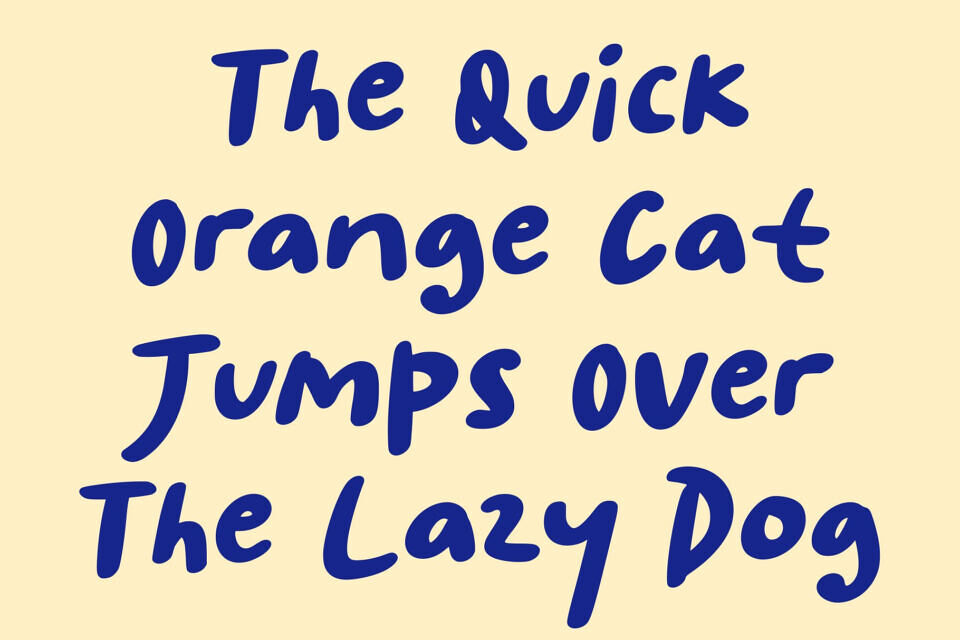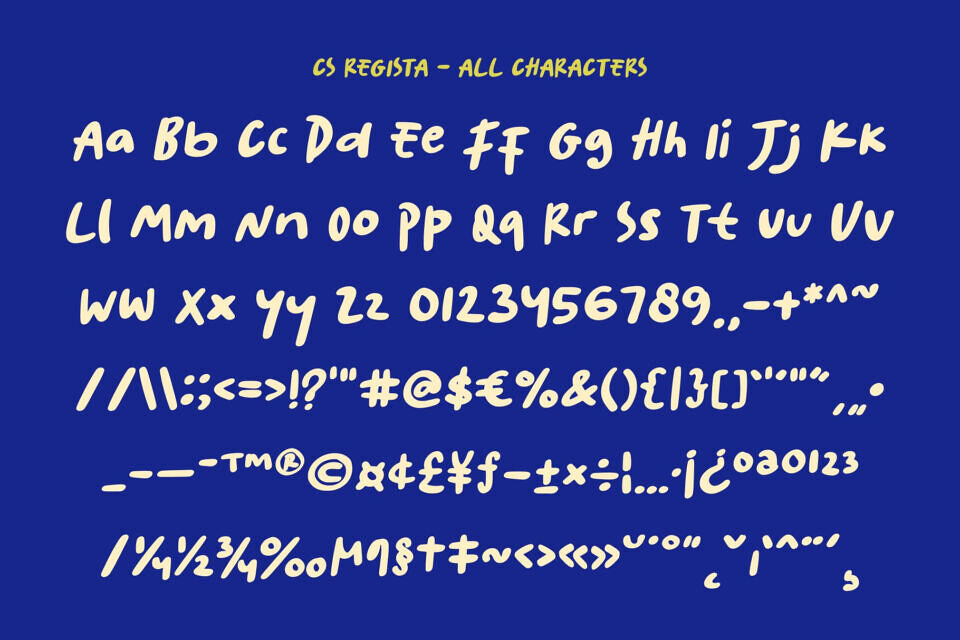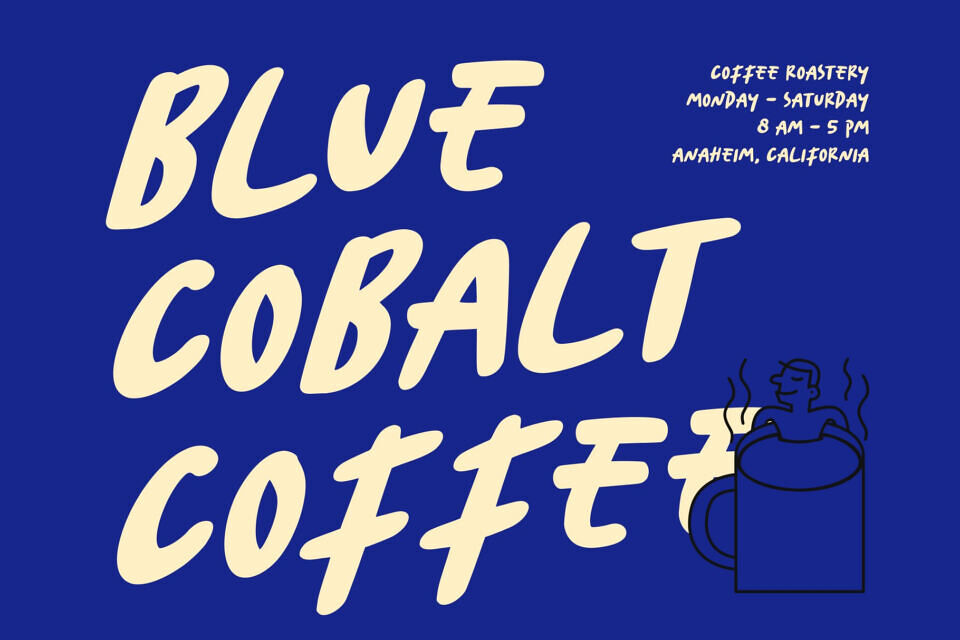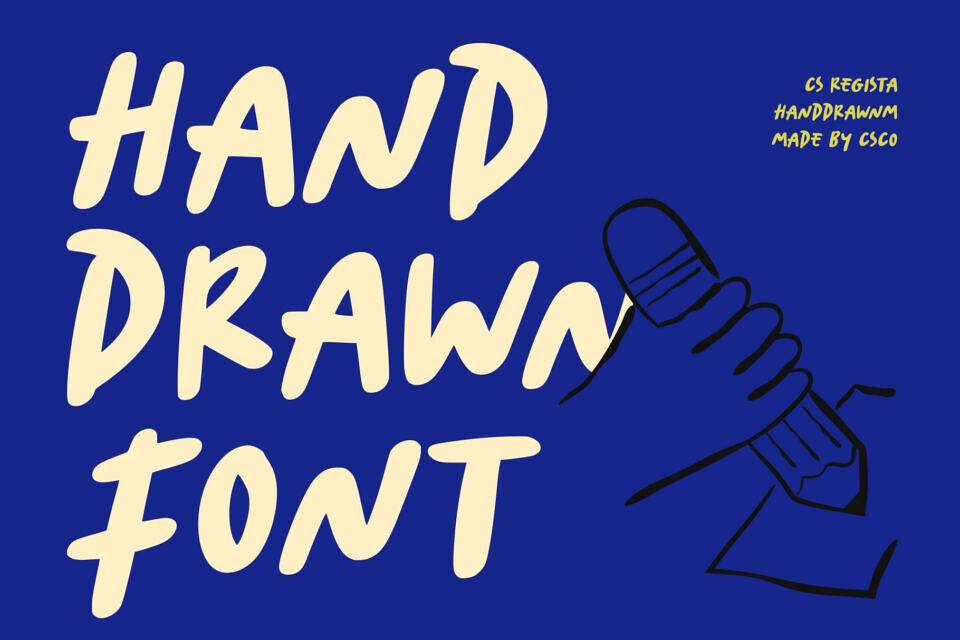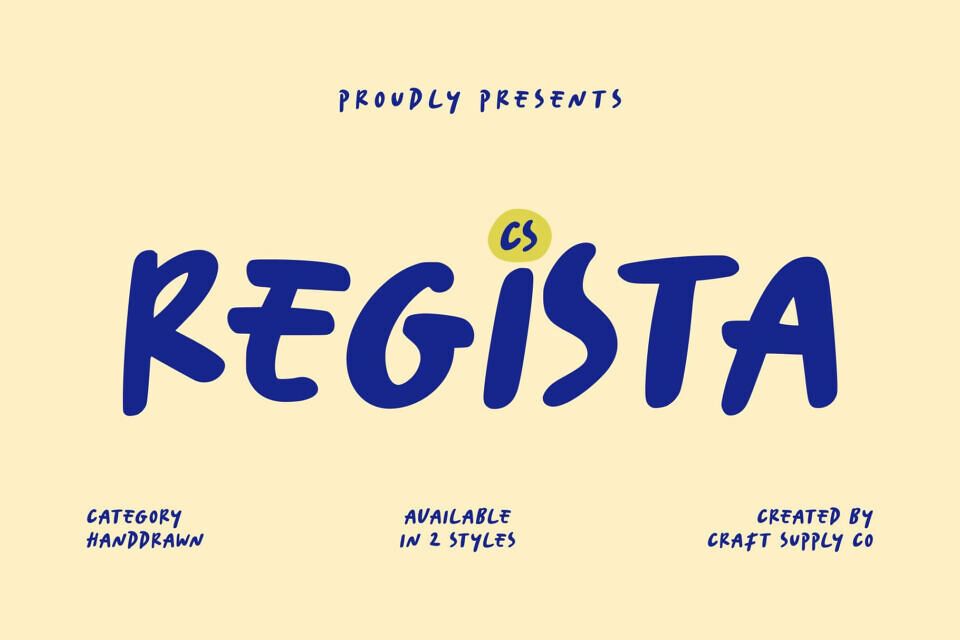
CS Regista Font
This is a Marker font that combines clean sans serif forms with the charm of natural handwriting. Each letter is infused with subtle handmade texture, giving the typeface an authentic, handcrafted feel while maintaining a polished and professional appearance.
The handwritten elements in this font enhance the natural flow of each character. Soft curves, organic strokes, and slightly irregular edges bring warmth and personality to the text, ensuring your designs feel approachable, lively, and visually engaging. These thoughtful details make it ideal for projects that benefit from a human touch.